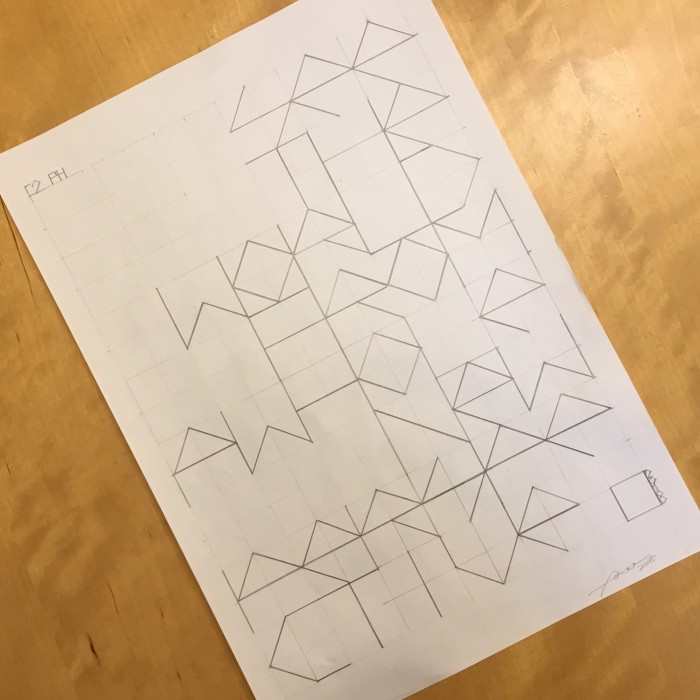
Beautiful abstract font, and the physical execution makes this font even more interesting!
- The space could be a little wider so as to differentitate one word from another.
A very good looking competition entry wataru, and like architaraz also mentioned, big up's for the physical execution as well.
I always thought of fontstructers to be hardcore computer nerds (such as myself). But seems some more 'traditional' artists are on here as well.
Good job!
very nice!
Congratulations! FontStruct Staff have deemed your FontStruction worthy of special mention. “Geometrica B&L” is now a Top Pick.